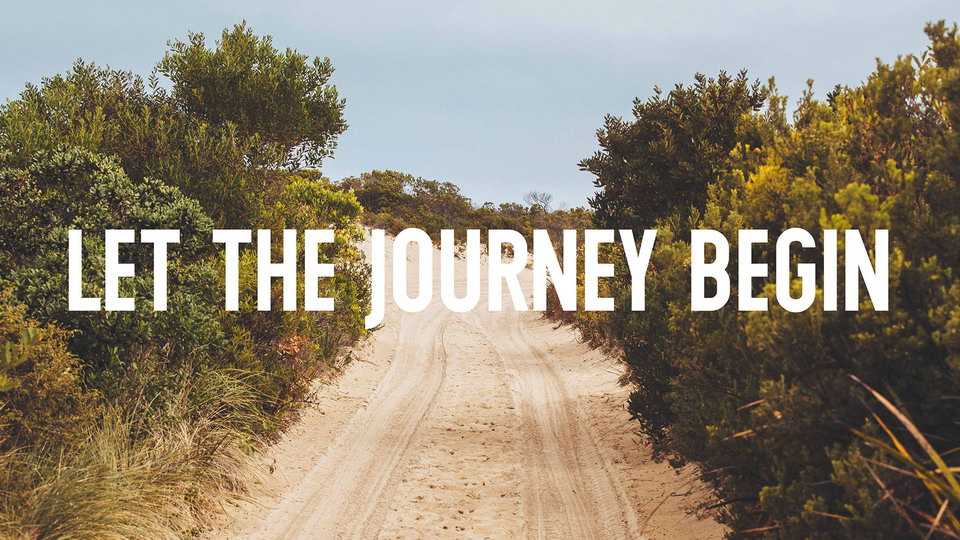
Download Wask New font family, a condensed sans serif typeface in two weights and Italic. Wask perfectly fits for business purposes, advertising, packaging and also for publications.
Designer: Vasilis Skandalos